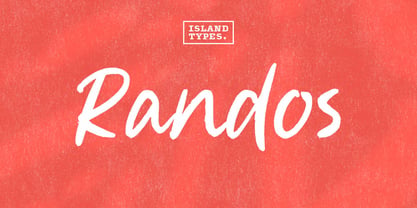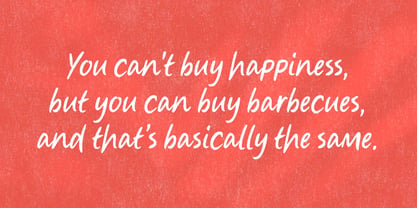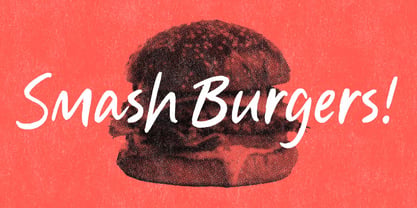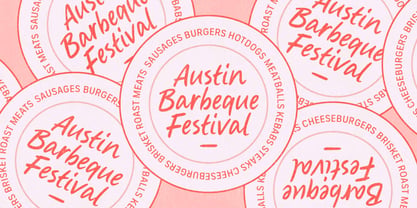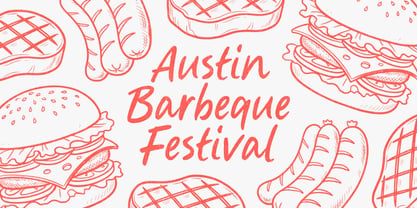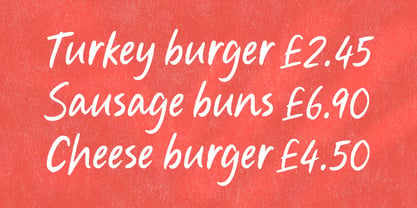
The Randos Font Family was designed by Chris York and published by Island Type Foundry. Randos contains 1 styles.
An informal brushy script font packed with personality yet still remaining legible and highly functional. Quickly written with authentic brush textures, this is a perfect design for advertising, packaging and anything that requires a hint of human touch and handmade goodness. The font comes in one weight but is packed with symbols, extended punctuation and a wide range of character support for an extensive list of languages.
Designers: Chris York
Foundry: Island Type Foundry
Randos